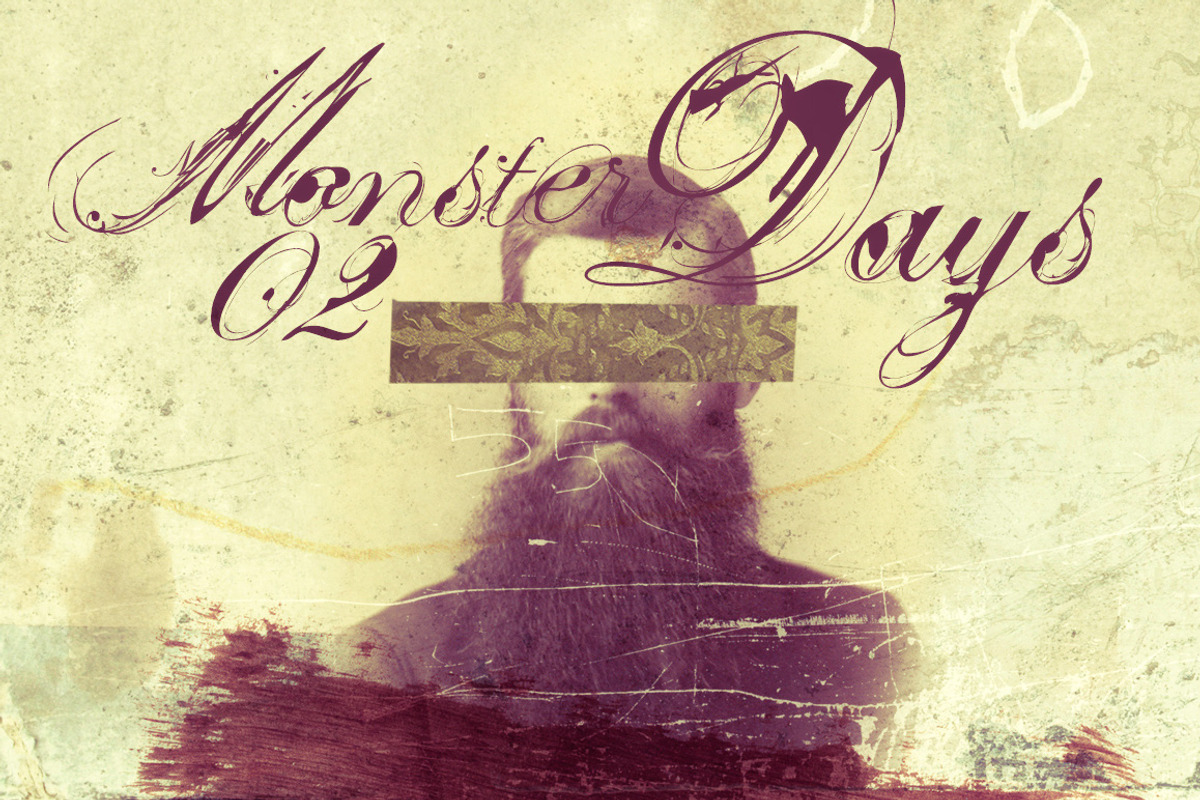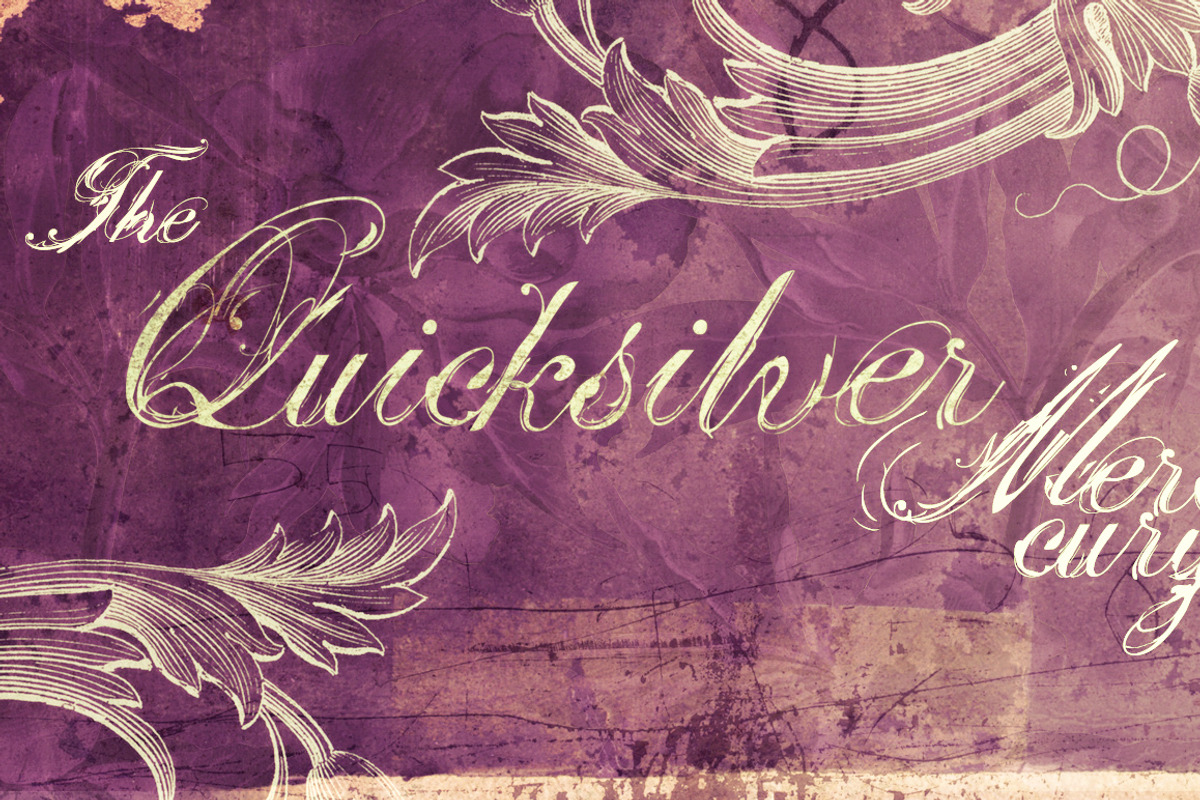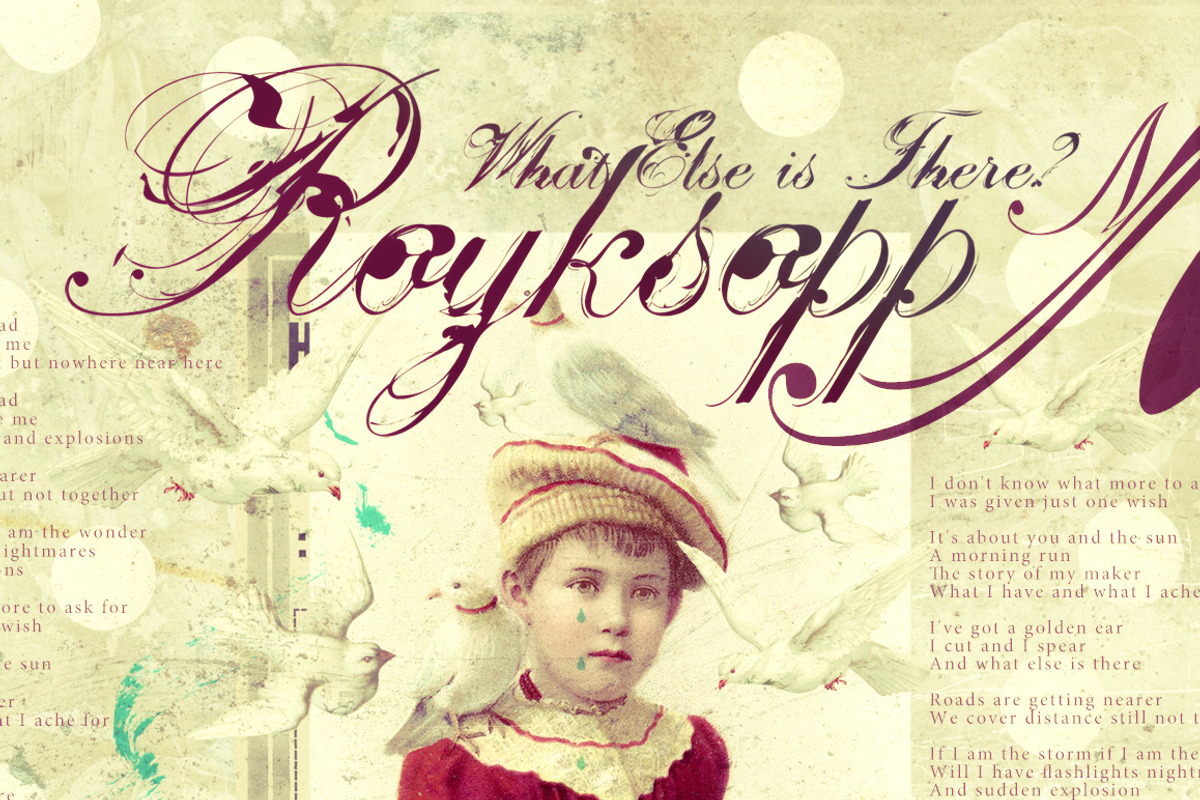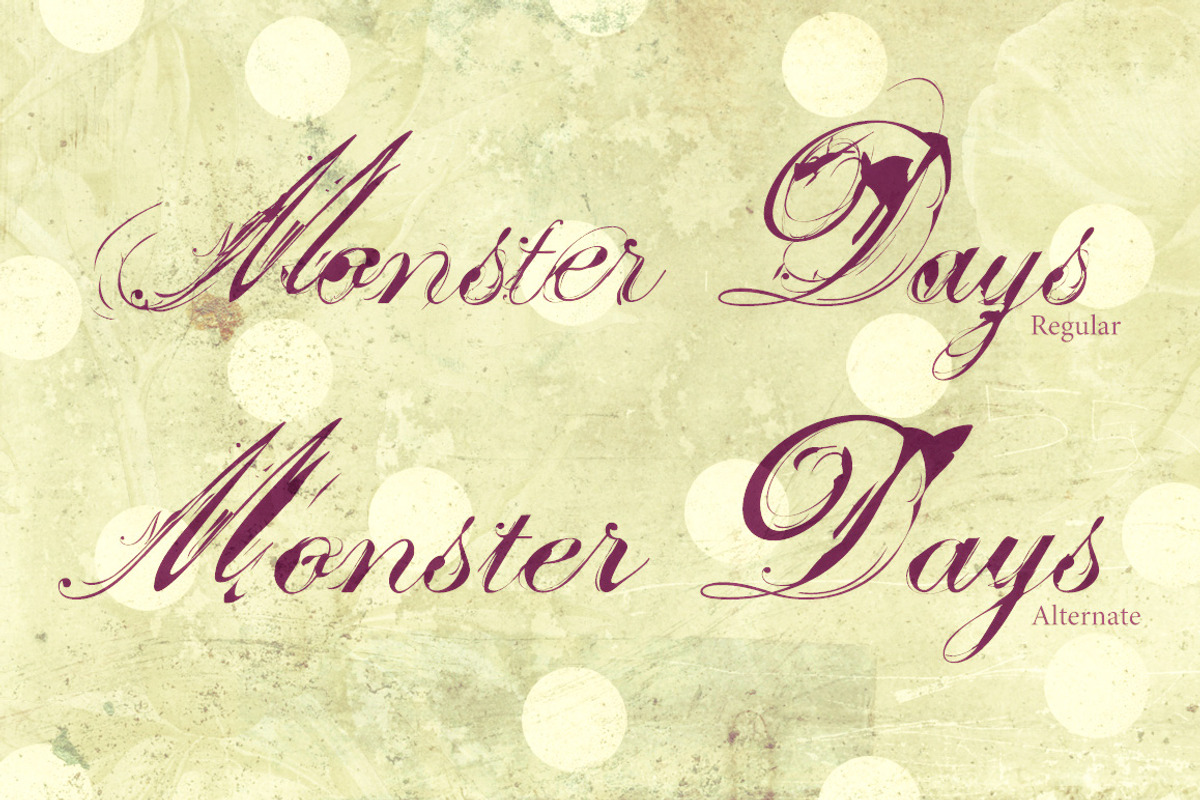
Monster Days Typeface 50% OFF by Misprinted Type is a font selected for branding, posters, packaging, typography.
- The typeface also comes with and EPS vector set with 16 ornaments!
- The family has 2 styles: regular and alternate.
Monster Days Typeface 50% OFF by Misprinted Type fits naturally into Branding, posters, packaging, typography.